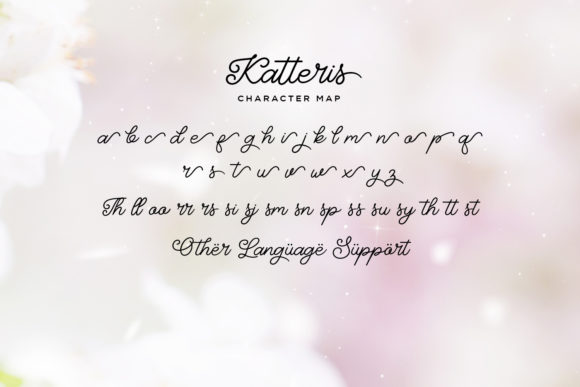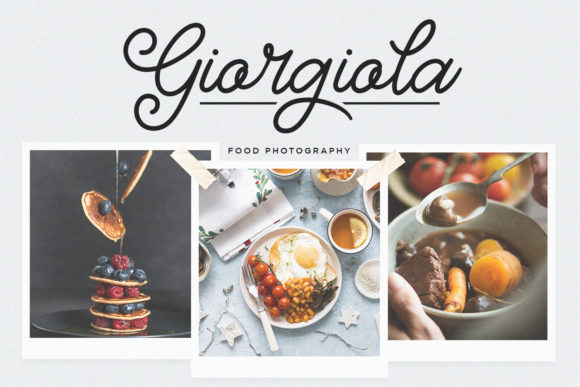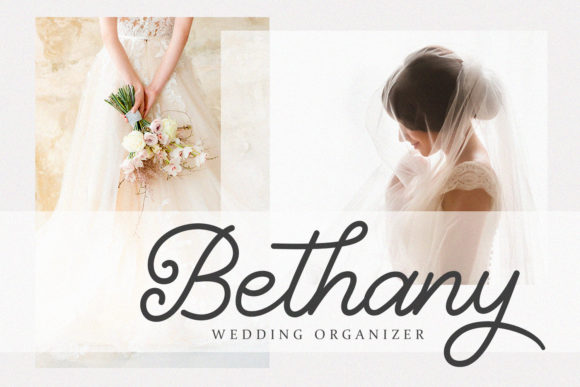
About Katteris Font
Katteris is a stunning script font with authentic and casual feels. This font is PUA encoded which means you can access all of the glyphs and swashes with ease!
This original look will appeal to a wide range of crafty ideas, from letterheads and titles, to stationery.